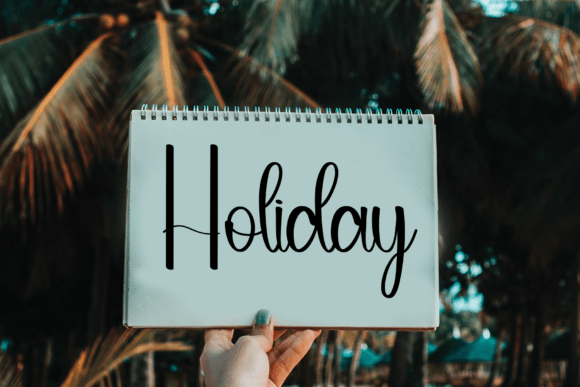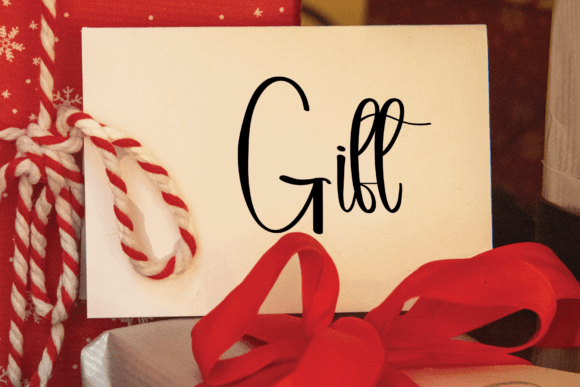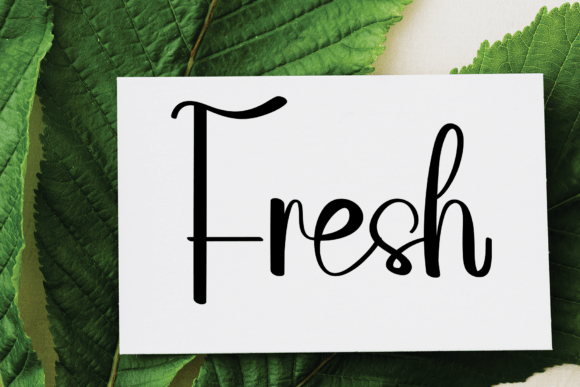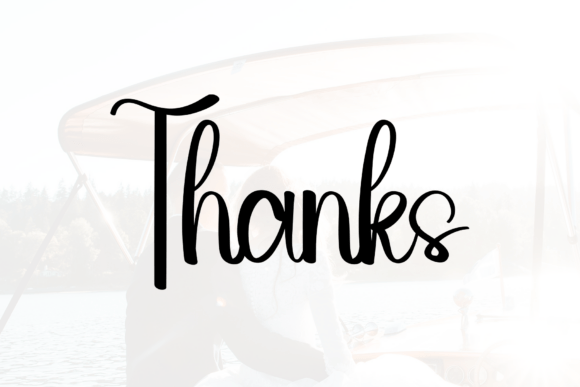
Romantic Flourishes with a Modern Edge: The Cutie Valentine Font
In the realm of typography, few fonts capture the essence of modern romance and calligraphic elegance as effortlessly as the Cutie Valentine font. This exquisite typeface is a masterful blend of traditional cursive and contemporary calligraphy, boasting dramatic, sweeping loops and high-contrast strokes that evoke the fluid movement of a professional brush pen. The result is a visually stunning font that strikes a perfect balance between classic sophistication and modern flair.
The Essence of Cutie Valentine
The Cutie Valentine font is designed to make a statement. Its large, expressive uppercase letters and delicate flourishes are meticulously crafted to create focal points in your design, drawing the viewer’s eye and captivating their attention. This typeface carries an inherent sense of celebration and affection, making it an indispensable tool for life’s most beautiful milestones. Whether you’re designing wedding stationery, high-end beauty packaging, or personalized gift tags, the Cutie Valentine font is the premier choice for adding a touch of elegance and sophistication.
Elegance in Design
One of the defining characteristics of the Cutie Valentine font is its unique blend of traditional and modern elements. The font’s sweeping loops and high-contrast strokes give it a distinctly calligraphic feel, reminiscent of expertly crafted handwriting. At the same time, its clean lines and balanced proportions ensure that it remains highly legible, even at smaller sizes. This versatility makes it an excellent choice for a wide range of design applications, from romantic wedding invitations to stylish branding and packaging.
Maximizing Impact
To truly maximize the impact of the Cutie Valentine font, it’s essential to use it thoughtfully and strategically. For best results, consider using it for short headers or individual names, allowing the flourishes to breathe and occupy space. This approach will help to create a sense of visual hierarchy, drawing attention to key elements and adding a touch of drama and sophistication to your design. By integrating the Cutie Valentine typeface into your workflow, you can elevate your branding and create stunning designs that leave a lasting impression.
Ideal Applications
The Cutie Valentine font is perfectly suited to a variety of design applications, including:
- Wedding Stationery: Create romantic and memorable wedding invitations, save-the-date cards, and ceremony programs that set the tone for a special day.
- High-End Beauty Packaging: Add a touch of luxury and sophistication to your beauty packaging, elevating your brand and making your products stand out.
- Personalized Gift Tags: Create customized gift tags that add a personal touch to any gift, making it extra special and meaningful.
- Branding and Advertising: Use the Cutie Valentine font to create eye-catching branding and advertising materials that capture attention and leave a lasting impression.
Tips for Working with Cutie Valentine
To get the most out of the Cutie Valentine font, consider the following tips:
- Use it sparingly: The Cutie Valentine font is designed to make a statement, so use it sparingly to maximize its impact.
- Experiment with colors: The font’s elegant lines and flourishes look stunning in a variety of colors, from classic black and white to bold brights and metallics.
- Pair it with complementary fonts: Combine the Cutie Valentine font with complementary fonts to create a visually appealing and harmonious design.
The Cutie Valentine font is a true gem in the world of typography, offering a unique blend of modern romance and calligraphic elegance. With its dramatic loops, high-contrast strokes, and delicate flourishes, this exquisite typeface is perfect for designers and crafters looking to add a touch of sophistication and whimsy to their work. By incorporating the Cutie Valentine font into your workflow, you can create stunning designs that capture attention, evoke emotion, and leave a lasting impression.